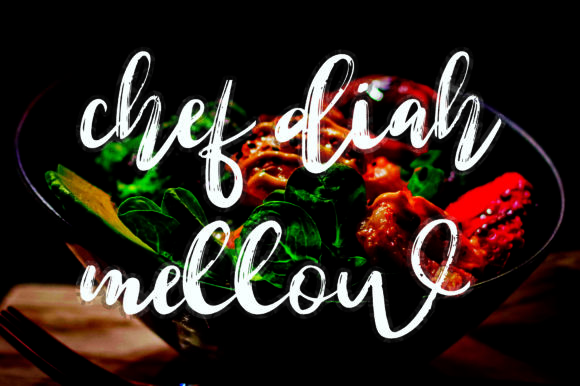
Journey into a Culinary Symphony of Elegance with Chef Diah Mellow: The Exquisite Handcrafted Font for Unforgettable Signatures
Welcome to the culinary haven of Chef Diah Mellow, a font that captures the essence of sophistication, warmth, and creativity. Inspired by the artistry of master chefs, this script font is a delectable treat for designers seeking a touch of elegance and individuality in their creations.
Indulge in the Sweet Symphony of Chef Diah Mellow
Chef Diah Mellow is a culinary masterpiece, a font that dances across the page with the grace of a skilled chef preparing a delectable dish. Its delicate strokes, reminiscent of a pastry chef's intricate frosting, add a touch of sweetness and playfulness to any design.
The romantic curves of Chef Diah Mellow evoke the elegance of a handwritten love letter, inviting your readers to savor every word. Its brushed texture adds depth and character, giving your designs a tactile quality that draws the audience in.
A Versatile Culinary Companion for Your Creative Endeavors
Chef Diah Mellow is a versatile culinary companion, equally at home in the kitchen of graphic design as it is in the dining room of web design. Its charming personality shines in wedding invitations, thank-you cards, greeting cards, and logos, adding a touch of warmth and whimsy to any occasion.
Step into the culinary world of Chef Diah Mellow and let your creativity flourish. This exquisite font is the perfect ingredient to elevate your designs, adding a touch of magic and inspiration to every project.
Taste the Elegance, Savor the Beauty: Chef Diah Mellow Awaits You
Chef Diah Mellow is more than just a font; it's an experience, a culinary journey that awakens the senses and ignites the imagination. With its delicate strokes, romantic curves, and brushed texture, this font is a feast for the eyes, a symphony of beauty that will leave your audience craving more.
So, embark on this culinary adventure with Chef Diah Mellow today. Let its delectable charm infuse your designs with elegance, warmth, and creativity.